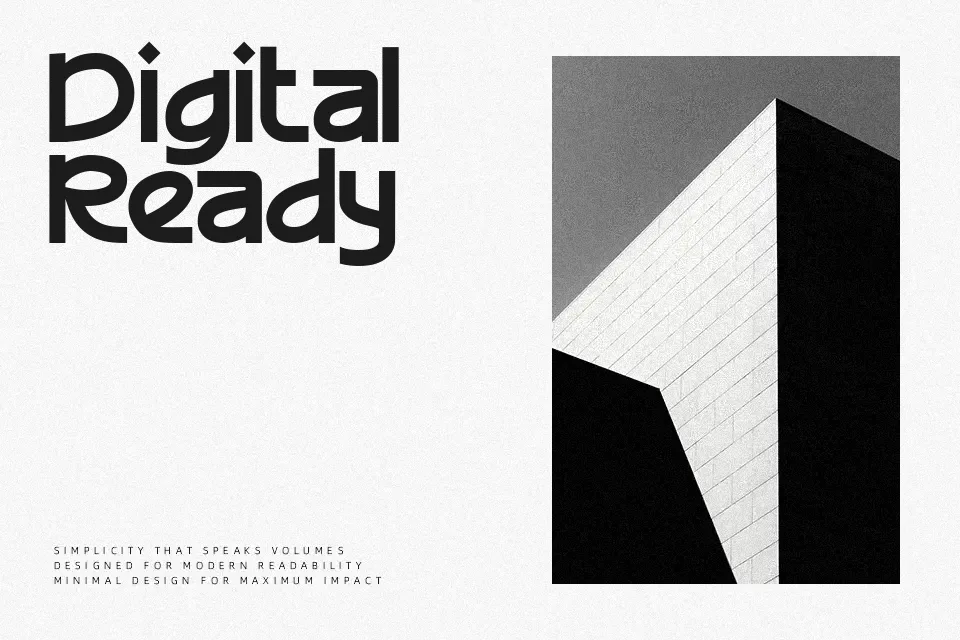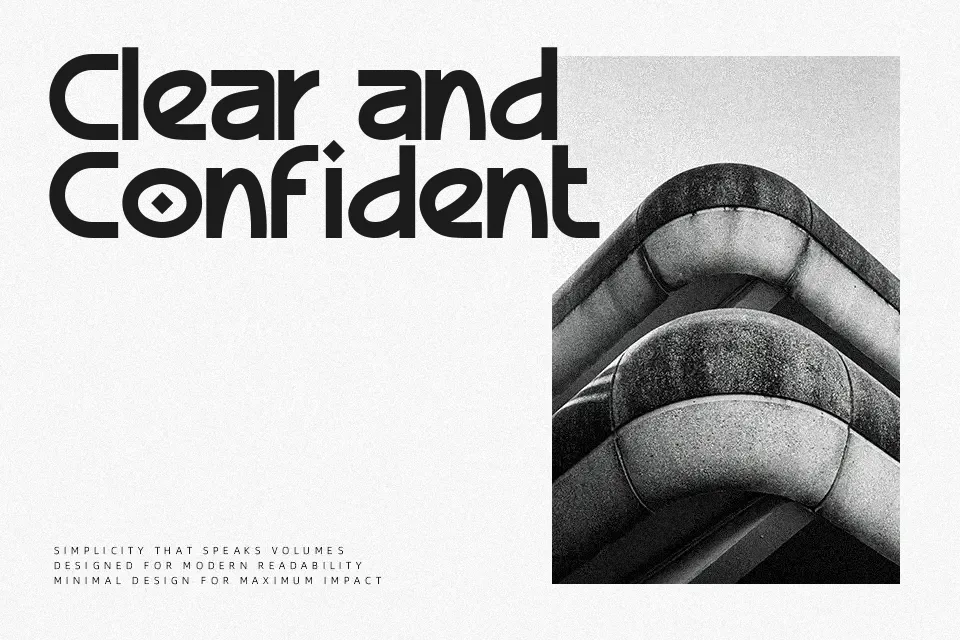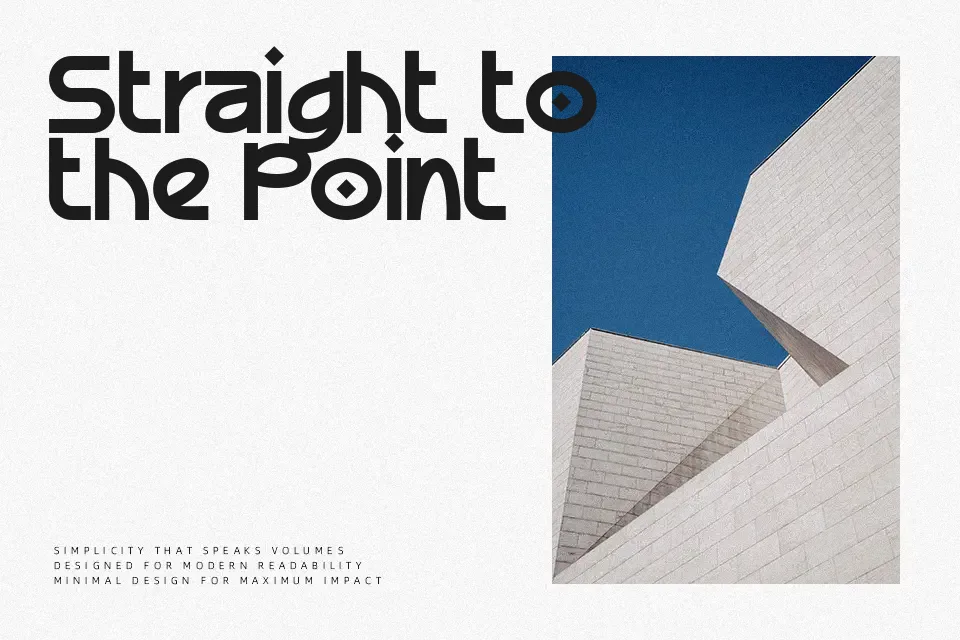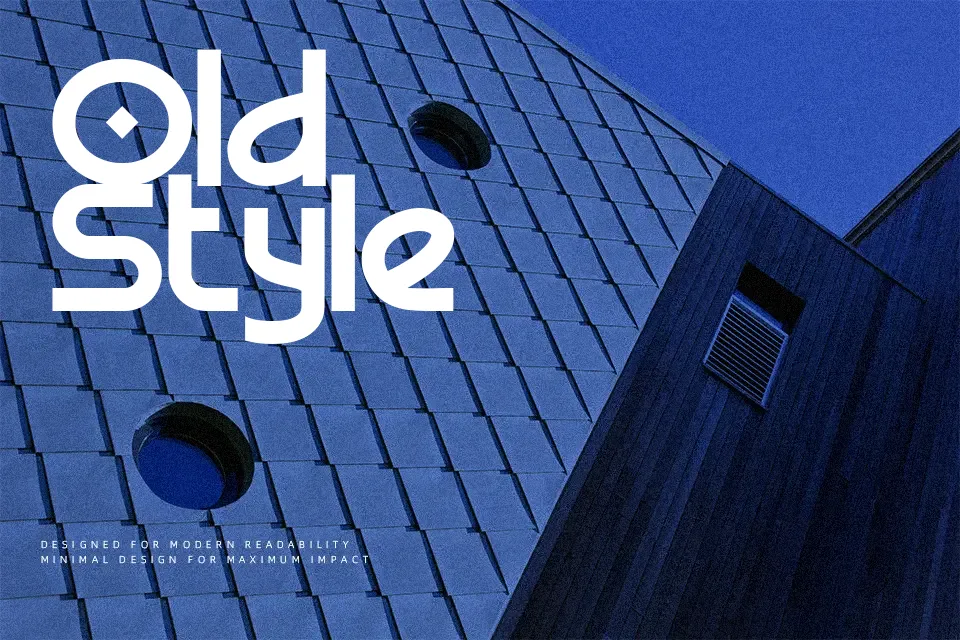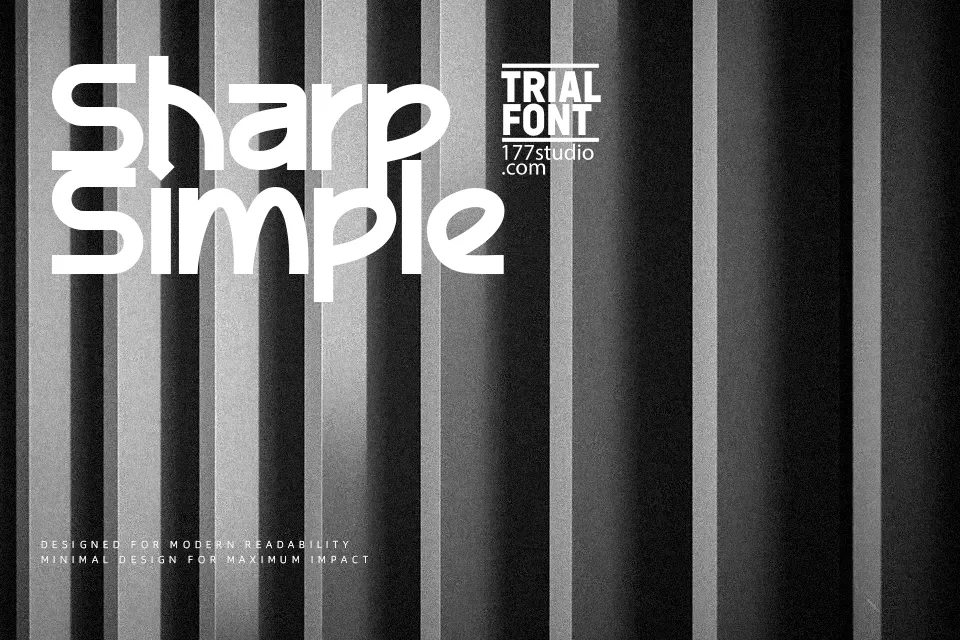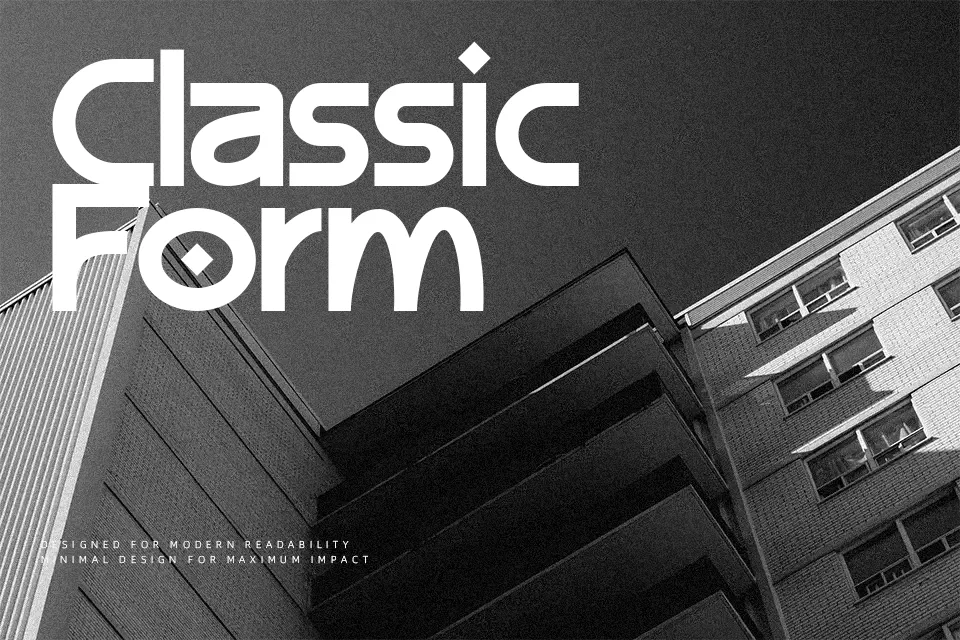
Traditional Civilization Font
Designed by 177Studio
Traditional Civilization Font introduces a structured sans serif framework defined by even monoline strokes, circular curves, and upright vertical proportions. Controlled spacing across the character set gives uppercase titles and short phrases a cohesive rhythm that holds together well on event posters, product boxes, and digital banners. Readability stays sharp whenever the letterforms are displayed in prominent headline settings. However, the dense interior counters reduce comfort during extended reading, making the typeface less suitable for continuous paragraphs or complex editorial layouts. The spacing helps maintain clarity in larger headlines, serving visual identities that require a sleek modern aesthetic.
Best For: event poster headlines, beverage packaging labels, website hero banners
Not Ideal For: long paragraph text, dense editorial layouts, small mobile interface labels
Perfect for branding, headline, and logo, with a clean and display style.